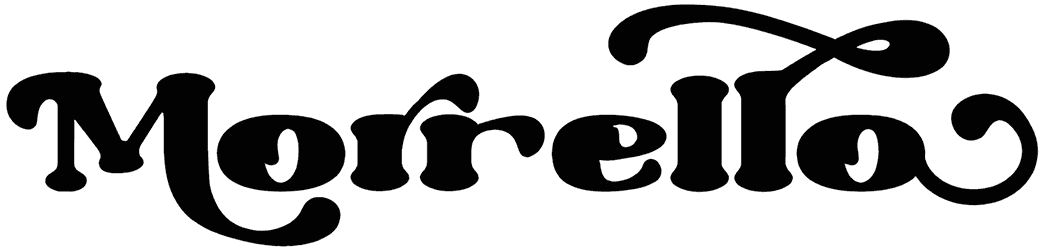
Morrello Font
If you’re looking for a decorative serif font for attractive designs, look no further than Morrello. This retro font works well for anything from cover art and movie titles to invitation cards and messages, both in print and on the screen.